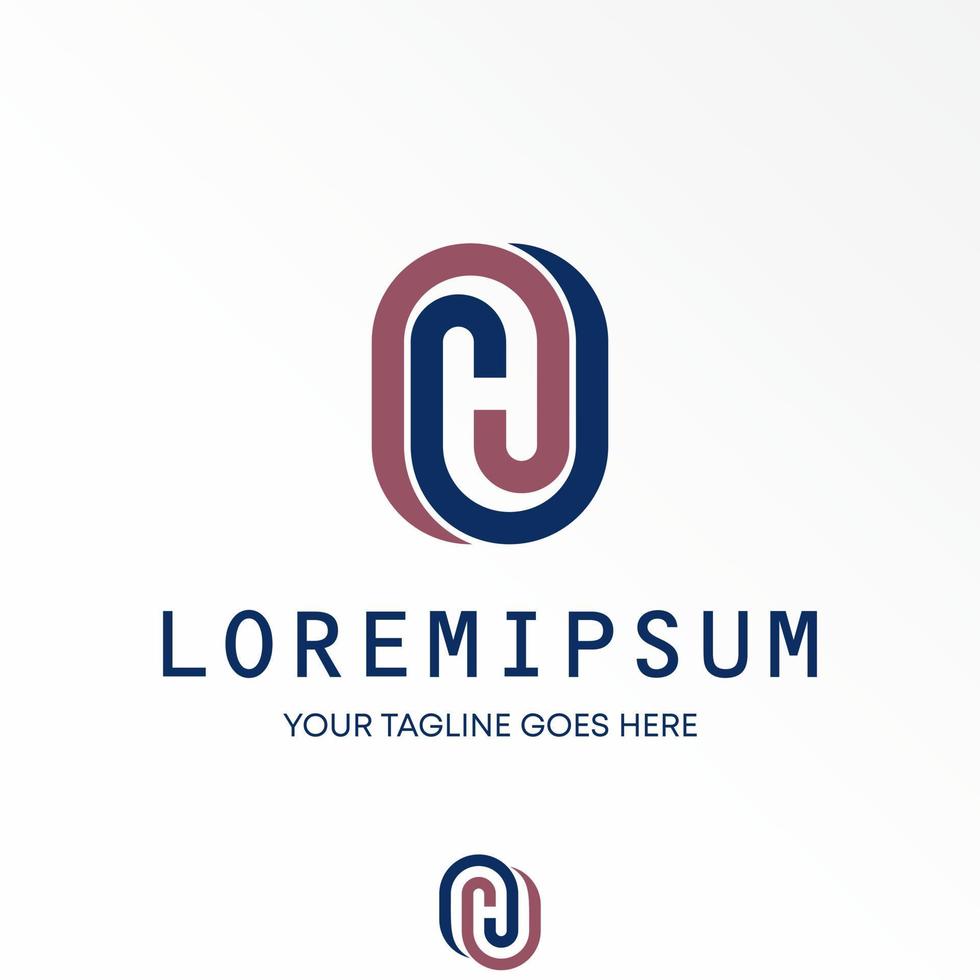
Letter or word H line font in rectangular circle ellipse block or Negative space image graphic icon logo design abstract concept vector stock. Can be used as a symbol related to initial. Pro Vector